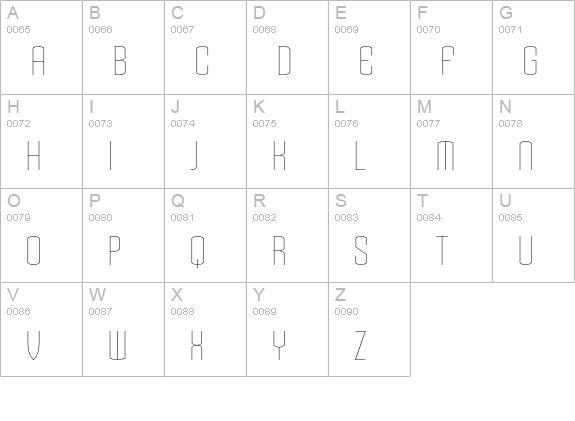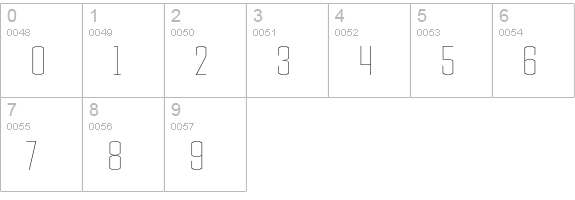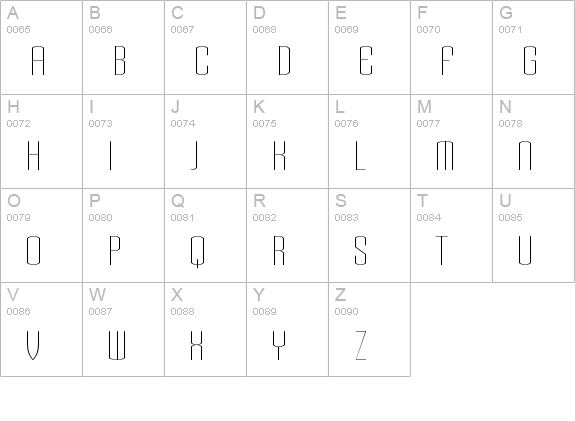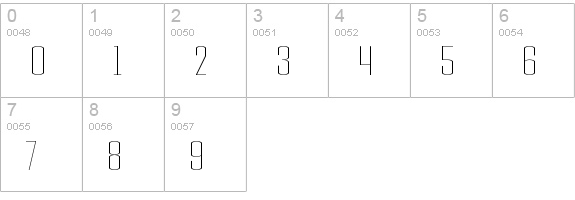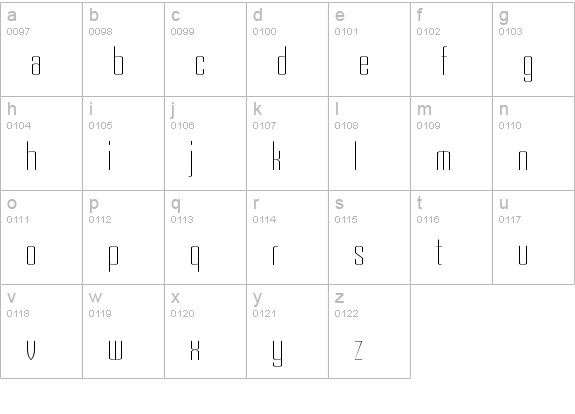
Introducing Armada-ThinCondensed font, a sleek and elegant typeface that exudes modern sophistication. This font is perfect for creating eye-catching headlines, branding materials, and stylish designs. With its thin condensed appearance, Armada-ThinCondensed offers a unique and stylish option for your projects. The beauty of Armada-ThinCondensed font lies in its simplicity and versatility, making it suitable for a wide range of design applications. Whether you're working on a website, poster, logo, or any other design project, this font is sure to make a statement. Best of all, Armada-ThinCondensed font is available for free download at FontsMarket.com. So go ahead and elevate your designs with this stunning typeface that combines elegance with modern flair. Download Armada-ThinCondensed font today and unleash your creativity!